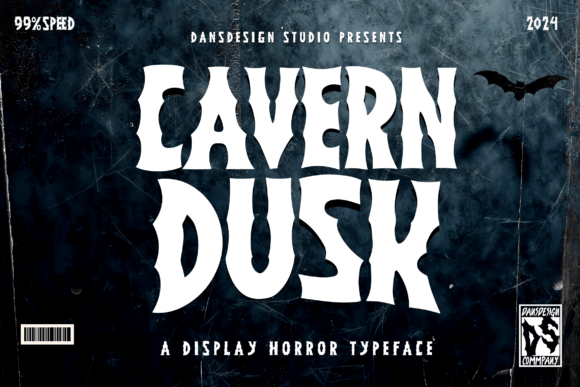
Introduction to Cavern Dusk Font
Cavern Dusk is a spooky Halloween horror display set in a dark cave.
Visitors walk through eerie tunnels filled with creepy creatures, glowing lights, and haunting sounds It’s designed to give you chills and thrills as you explore the mysterious, dimly lit cavern.